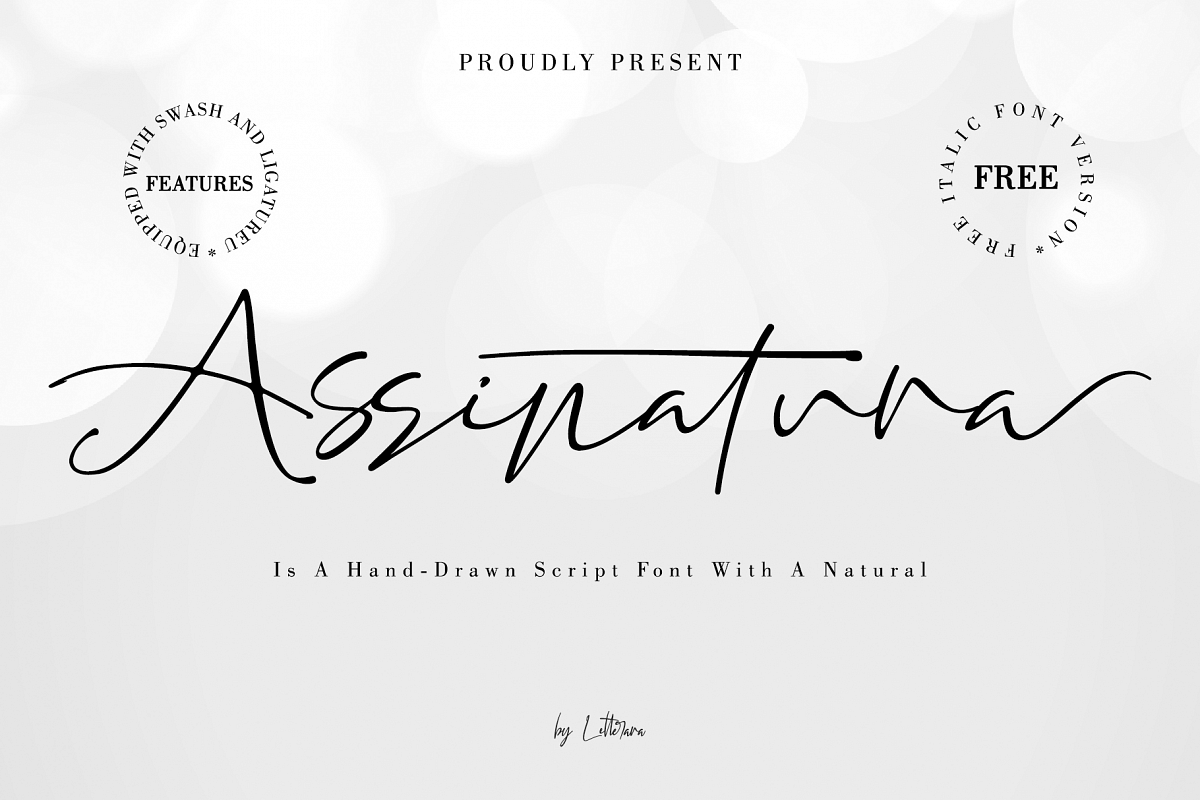
Assinatura comes from Portuguese which means signature.
Assinatura Is A Hand-Drawn Script Font With A Natural. This signature script
moves with ease across any design, and adds a large dose of confidence and
style.